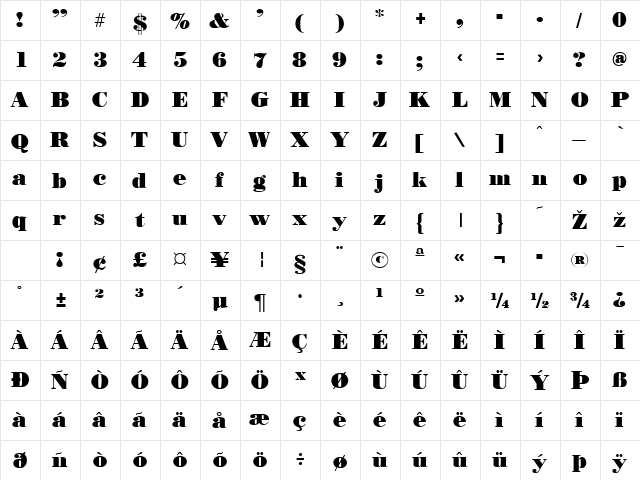
Durham Poster Bold Font Preview
Durham Poster Bold
Design Context for Durham Poster Typeface
Durham Poster is a composed and adaptable typeface that performs quietly and consistently across a wide range of design contexts. The heavy weight commands attention and anchors typographic hierarchies.